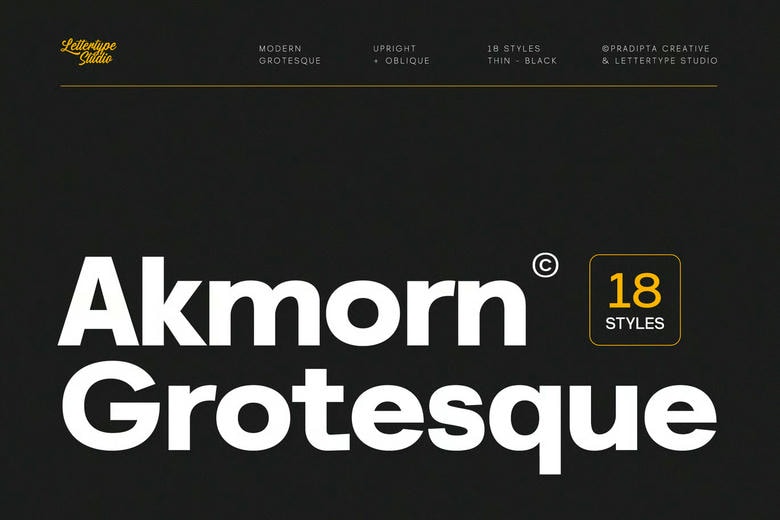
Akmorn Grotesque Font
Akmorn is a contemporary grotesque sans serif font that has been developed to be multipurpose and exact. It is constructed out of clean geometry and balanced proportions, and it includes 18 carefully designed styles, ranging from the soft delicate Thin to the powerful Black supported by an oblique at every end, creating a full typographic palette. It has a versatile and modern look and feel suitable to corporate and artistic work.
Akmorn is easily scaled to a number of applications due to its great multilingual support, advanced OpenType features and usual kerning. The font family is perfected in branding, editorial designs, digital interface, and large signages as the font family provides clear and readable graphics with stylishness across the board.
Akmorn Grotesque Sans Serif Font